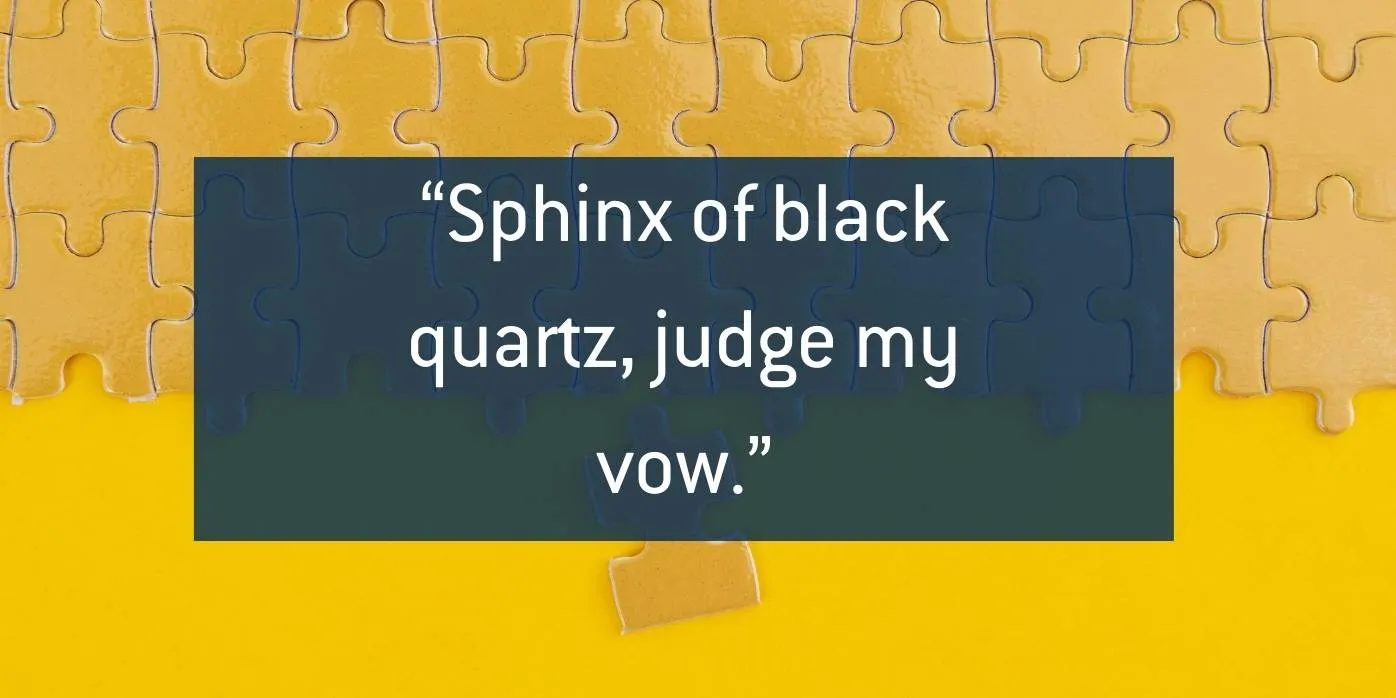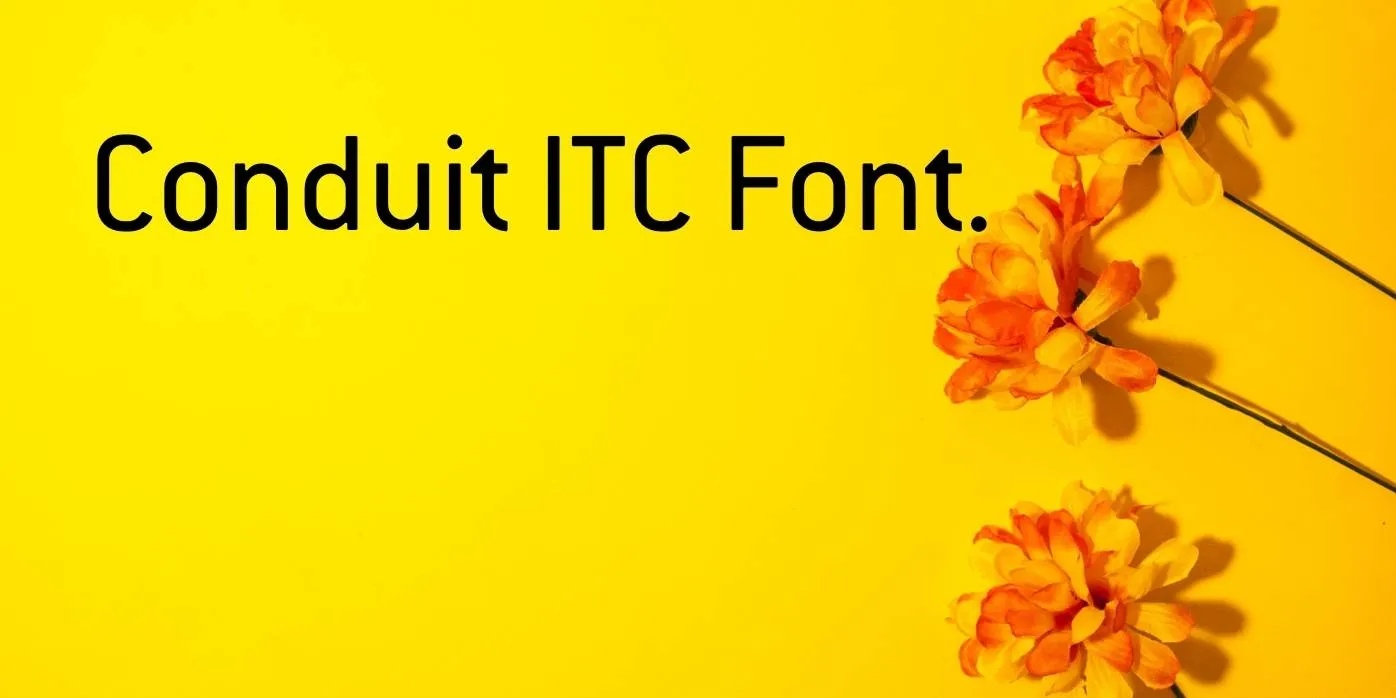
Conduit ITC Font
Today, we are introducing a most stylish and massive fame font family that was known by the name Conduit ITC Font. This classy fon family was developed by a very famous and classic designer Mark Van Bronkhorst. This astonishing typeface belongs to the Sans-Serif font family.  This beautiful typeface is available in 14 different and popular styles. This classic font family comes in many weights.
That is the reason behind the popularity of this amazing font family. Also, this attractive typeface has standard Glyphs. Interstate Font is one of the most alternative fonts to this marvelous font family. This stylish is best for the CSS family.
Many designers show their desire to use this classic font for their different interesting projects. The most popular and unique styles of this typeface were extra black light and Black. If you are a professional designer and you want to get massive popularity in your projects so you will use this font. Its online generator tool is best for creating different types of designs.